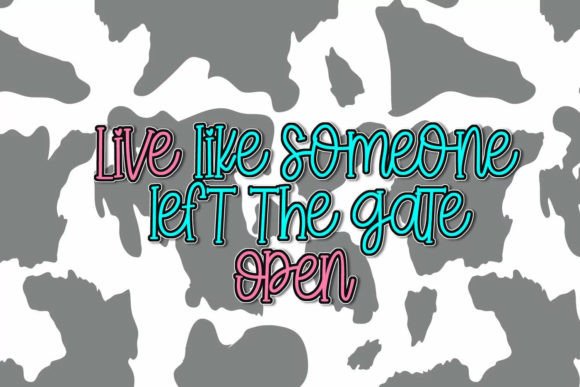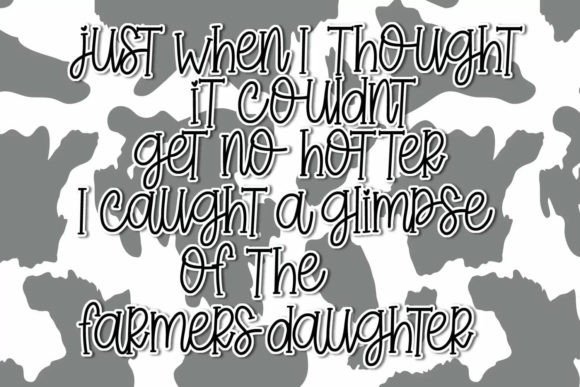
Introducing Farmers Daughter Font: The Perfect Addition to Your Design Arsenal
Are you a designer, crafter, or DIY enthusiast looking for a unique and playful font to elevate your projects? Look no further than Farmers Daughter Font! This semi-script font is designed to add a touch of whimsy and charm to any design, making it perfect for a wide range of applications. In this article, we’ll take a closer look at the features and benefits of Farmers Daughter Font, and explore how you can use it to take your designs to the next level.
What is Farmers Daughter Font?
Farmers Daughter Font is a semi-script font that features many letters attached, giving it a flowing and connected look. The font also includes adorable hearts throughout, adding a playful and romantic touch to any design. With its unique blend of elegance and whimsy, Farmers Daughter Font is perfect for designers and crafters who want to add a personal touch to their projects.
Optimized for Cutting Machines
One of the standout features of Farmers Daughter Font is its optimization for cutting machines. The font has been carefully crafted with optimized nodes, making it easy to cut and weed. This means that you can use Farmers Daughter Font with your cutting machine, such as a Cricut or Silhouette, to create intricate designs and shapes with ease. Whether you’re making signs, banners, or other DIY projects, Farmers Daughter Font is the perfect choice.
Adorable on Any Project
Farmers Daughter Font is incredibly versatile, and can be used on a wide range of projects. From DIY signs and banners to scrapbooking and card making, this font is sure to add a touch of charm and personality to any design. The font is also perfect for crafters who love to make custom gifts, such as personalized mugs, tumblers, and more.
Key Features of Farmers Daughter Font
- Semi-script font with many letters attached
- Adorable hearts throughout for a playful touch
- Optimized nodes for easy cutting with cutting machines
- Perfect for DIY projects, scrapbooking, card making, and more
- Incredibly versatile and easy to use
Tips and Tricks for Working with Farmers Daughter Font
Here are a few tips and tricks to help you get the most out of Farmers Daughter Font:
- Use Farmers Daughter Font in combination with other fonts and graphics to create unique and eye-catching designs
- Don’t be afraid to get creative and try new things – Farmers Daughter Font is perfect for experimenting with different design styles and techniques
Farmers Daughter Font is a unique and versatile font that’s perfect for designers, crafters, and DIY enthusiasts. With its semi-script style, adorable hearts, and optimized nodes, this font is sure to add a touch of charm and personality to any design. Whether you’re making signs, banners, or other DIY projects, Farmers Daughter Font is the perfect choice. So why wait? Download Farmers Daughter Font today and start creating your own unique and eye-catching designs!